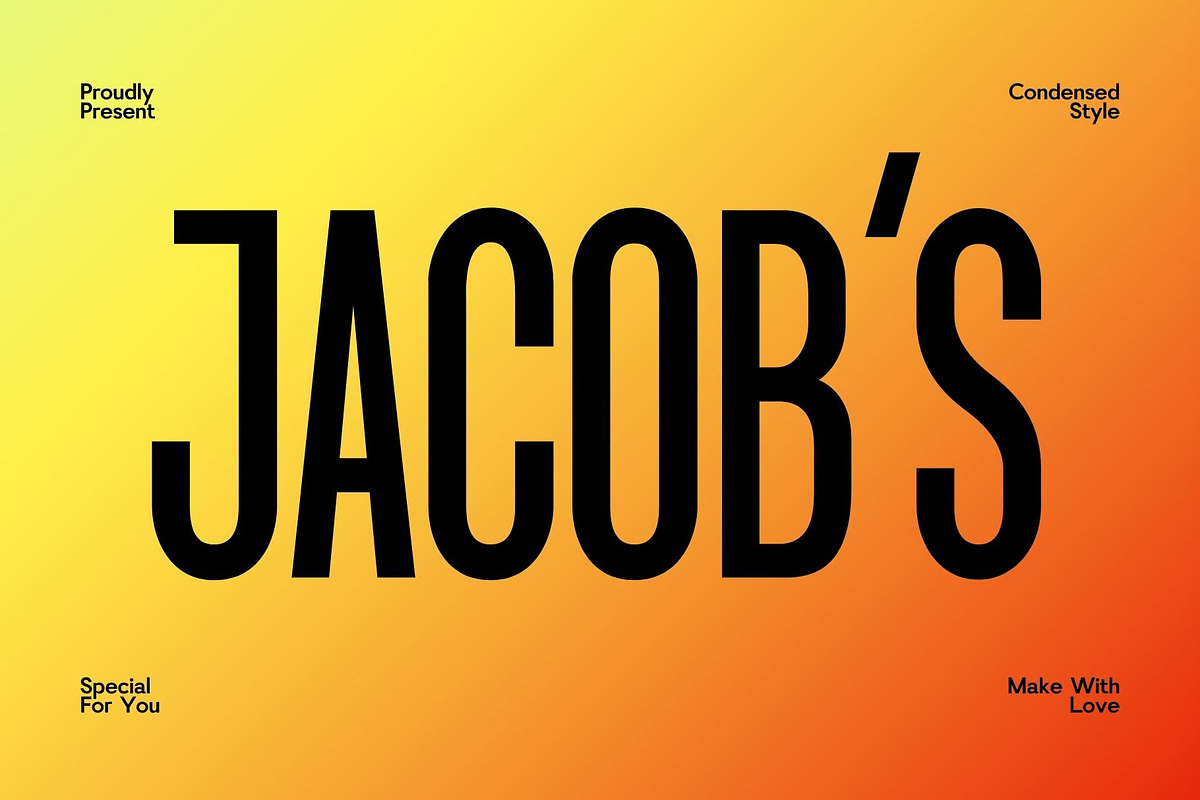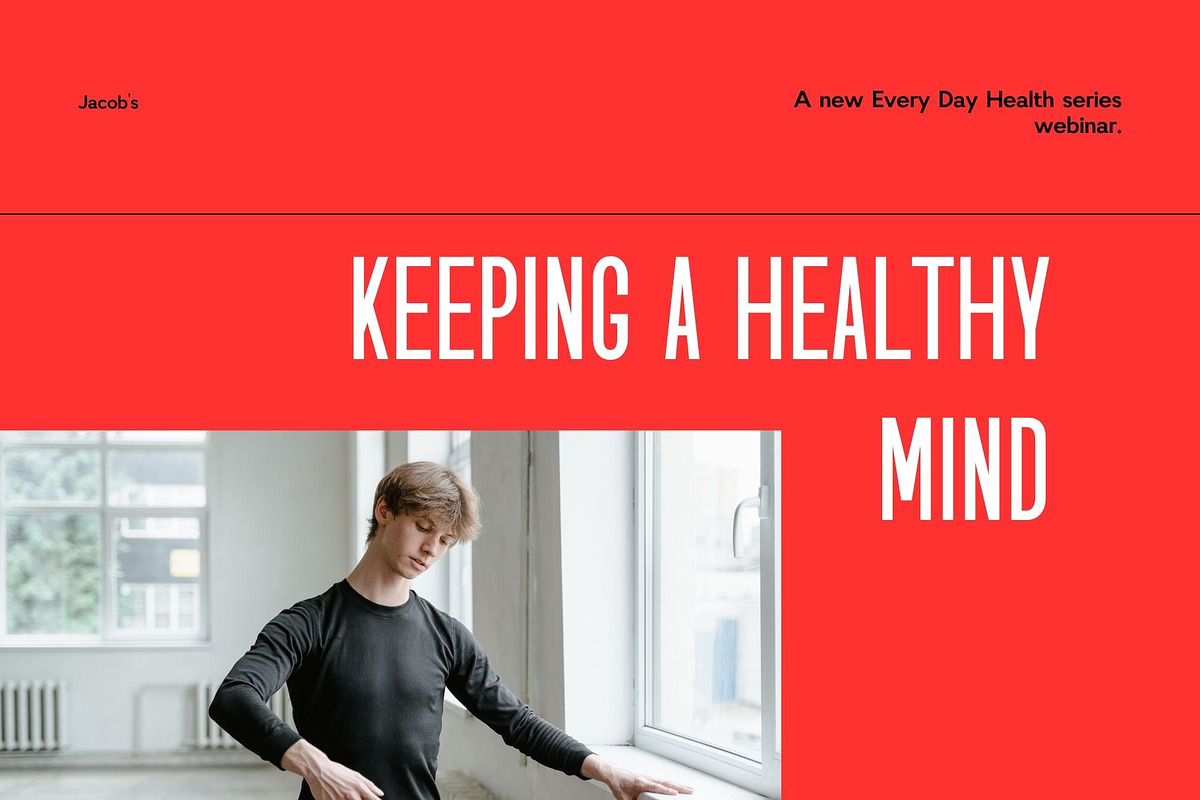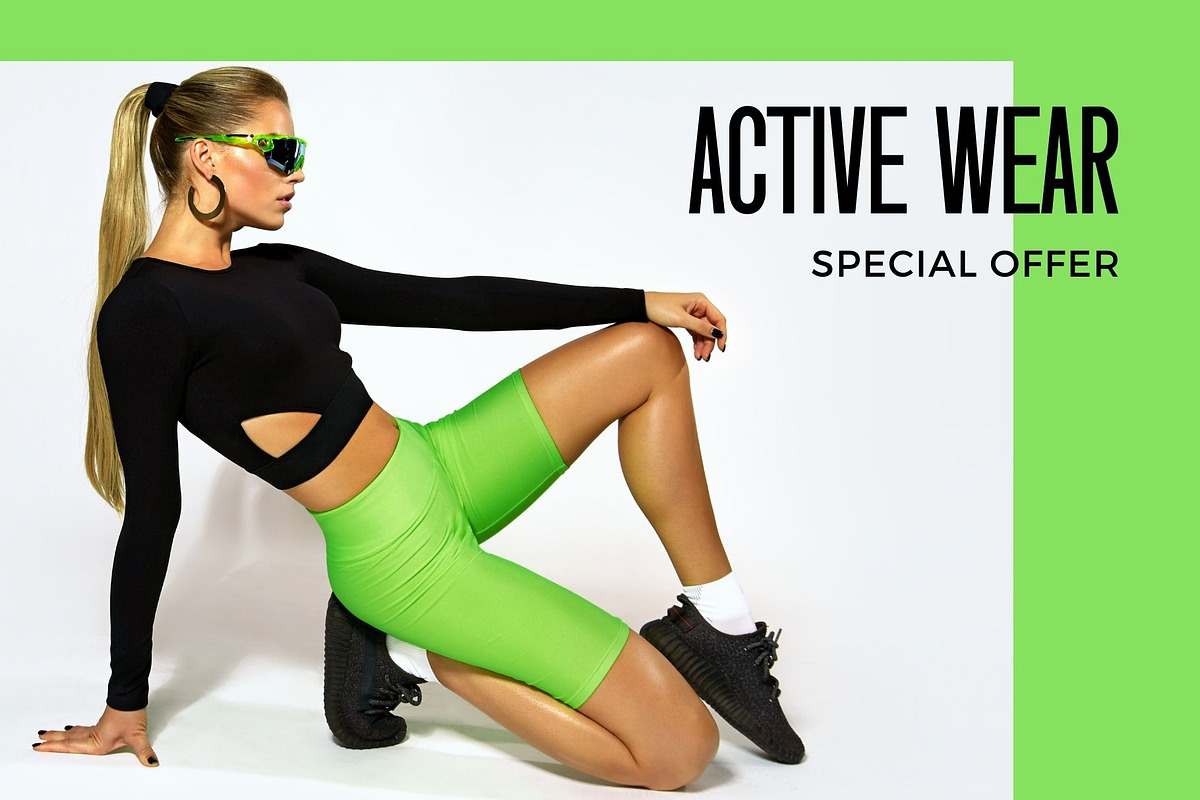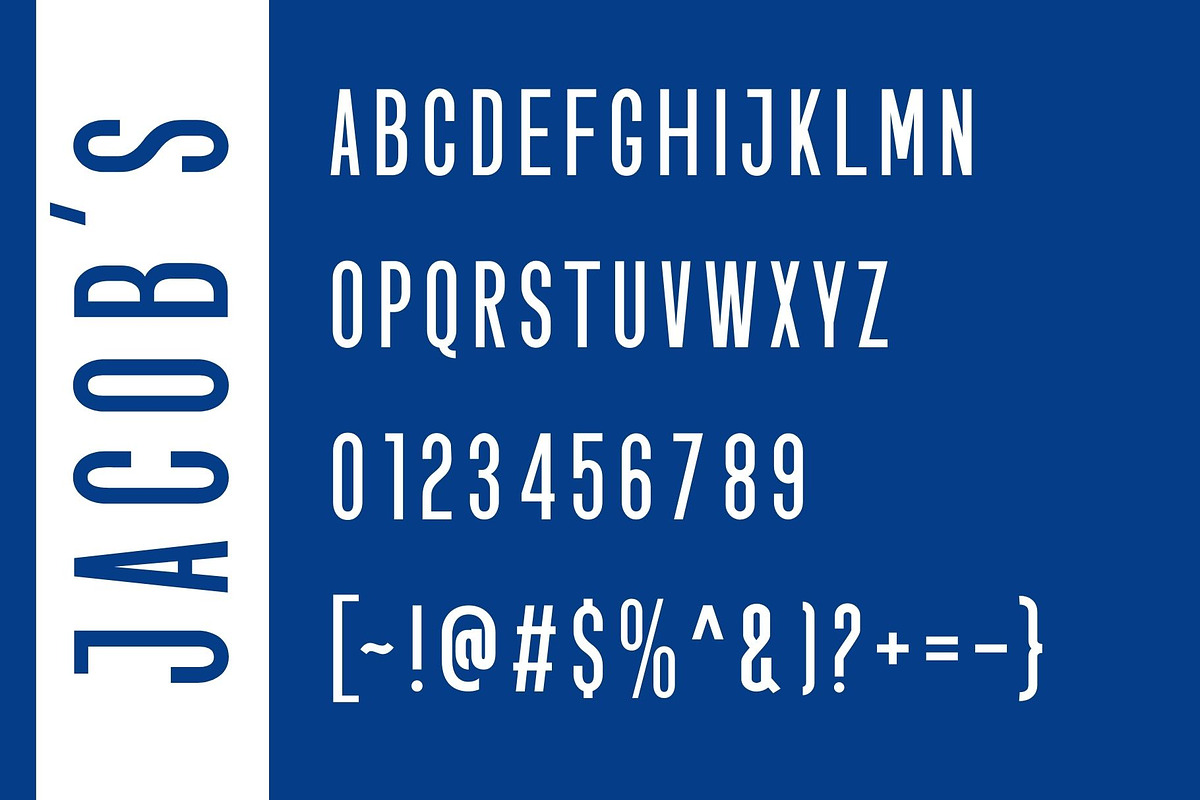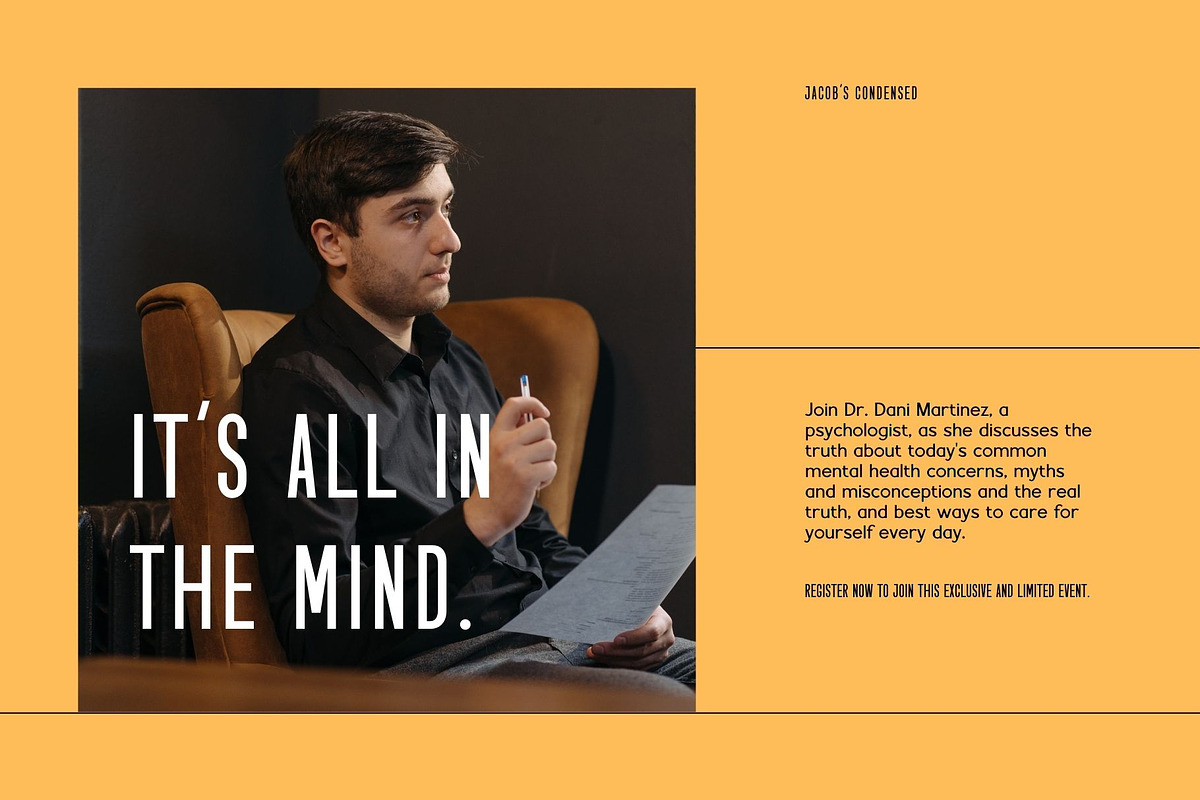
Jacob's-Modern Condensed Sans Serif
Introducing 'Jacob's' Font:
Discover the captivating allure of the 'Jacob’s' font, a stunning series of letters designed to elevate your writing experience. The neat lettering provides a modern and visually pleasing aesthetic, striking a perfect balance between a contemporary feel and timeless elegance. While exuding a modern impression, the 'Jacob’s' font maintains an inherent sense of sophistication, making it an ideal choice for various writing needs. Our commitment to precision ensures meticulous tidiness in the crafting of each letter, making quality our top priority. Experience the blend of modernity and elegance with the meticulously designed 'Jacob’s' font.
Ideal for:
- Modern Designs
- Web Design Projects
- Advertising Campaigns
- Social Media Designs
- Apparel
- Ready for Creative Expression
- Immaculately Crafted Letters